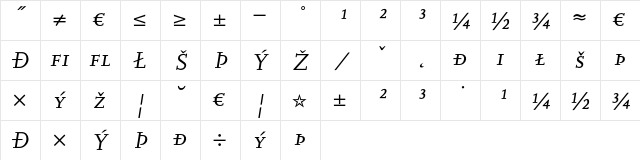
Scala Caps Exp Italic
Design Context for Scala Caps Exp Typeface
Scala Caps Exp takes a measured approach to typography — its balanced proportions and neutral character make it a reliable workhorse for both digital and print work. Its italic angle brings a sense of urgency and motion to the letterforms.
Pro Tip: Try Scala Caps Exp for annotation and caption copy alongside an upright companion — the contrast in angle creates a dynamic but ordered typographic system.